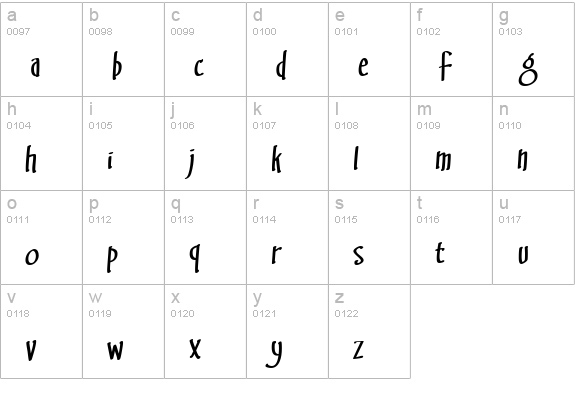
SwingSet BB Font Details
SwingSet BB font is a playful and whimsical typeface that adds a touch of fun to any design project. With its bouncy and energetic letterforms, this font is perfect for creating eye-catching headlines, invitations, and more. The free-flowing strokes and charming details make SwingSet BB font a great choice for adding a touch of personality to your designs. Best of all, SwingSet BB font is freely available to download at FontsMarket.com. Whether you're a professional designer or just looking to add a bit of flair to your personal projects, this font is sure to inspire creativity and bring a smile to your audience's faces. Download SwingSet BB font today and let your imagination swing into action!